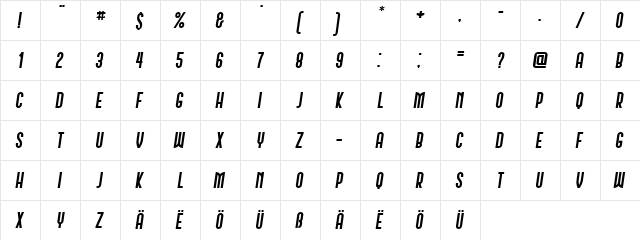
Schwarzenberg Italic
Design Context for Schwarzenberg Typeface
Schwarzenberg is a composed and adaptable typeface that performs quietly and consistently across a wide range of design contexts. The dynamic lean of this cut emphasises speed and emphasis in any layout.